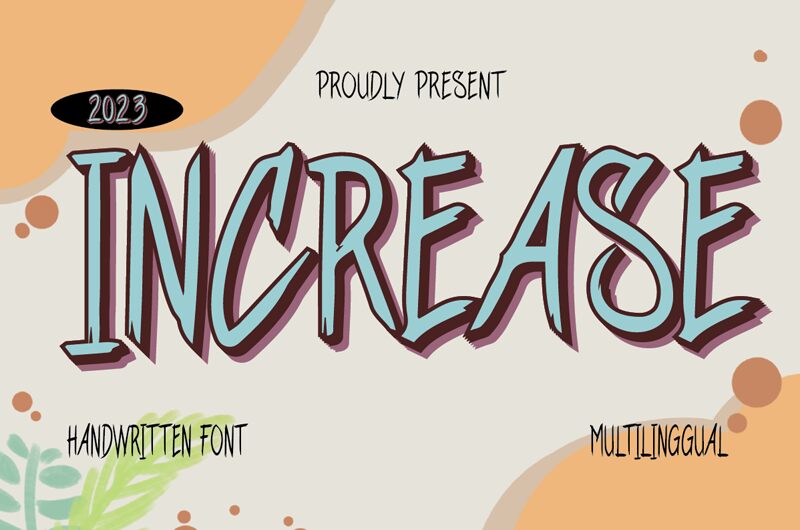
Increase font by Studio Hello Good beautifully captures the essence of handwritten style with its condensed design. This free font radiates a personal and expressive aesthetic, making it ideal for creative projects that seek to convey authenticity and warmth.
Its unique characteristics lend themselves perfectly to branding, invitations, and social media graphics, where a personal touch is desired.
Increase